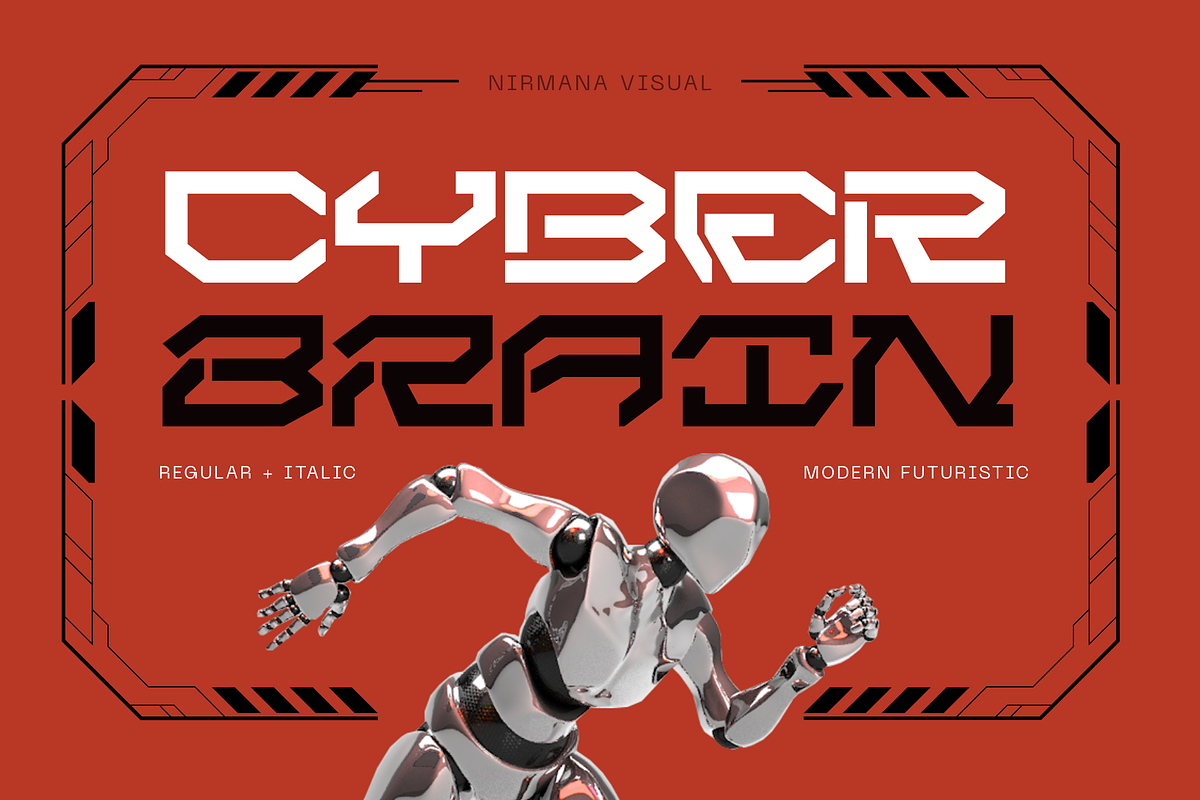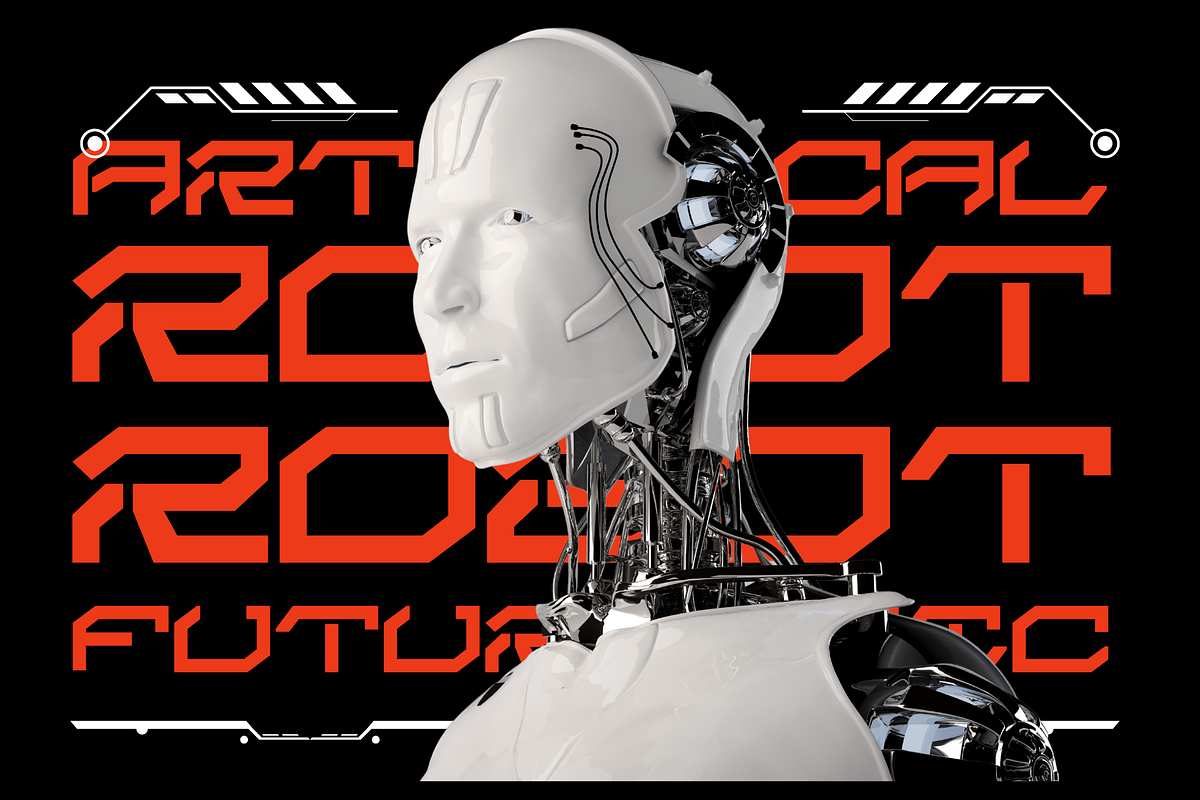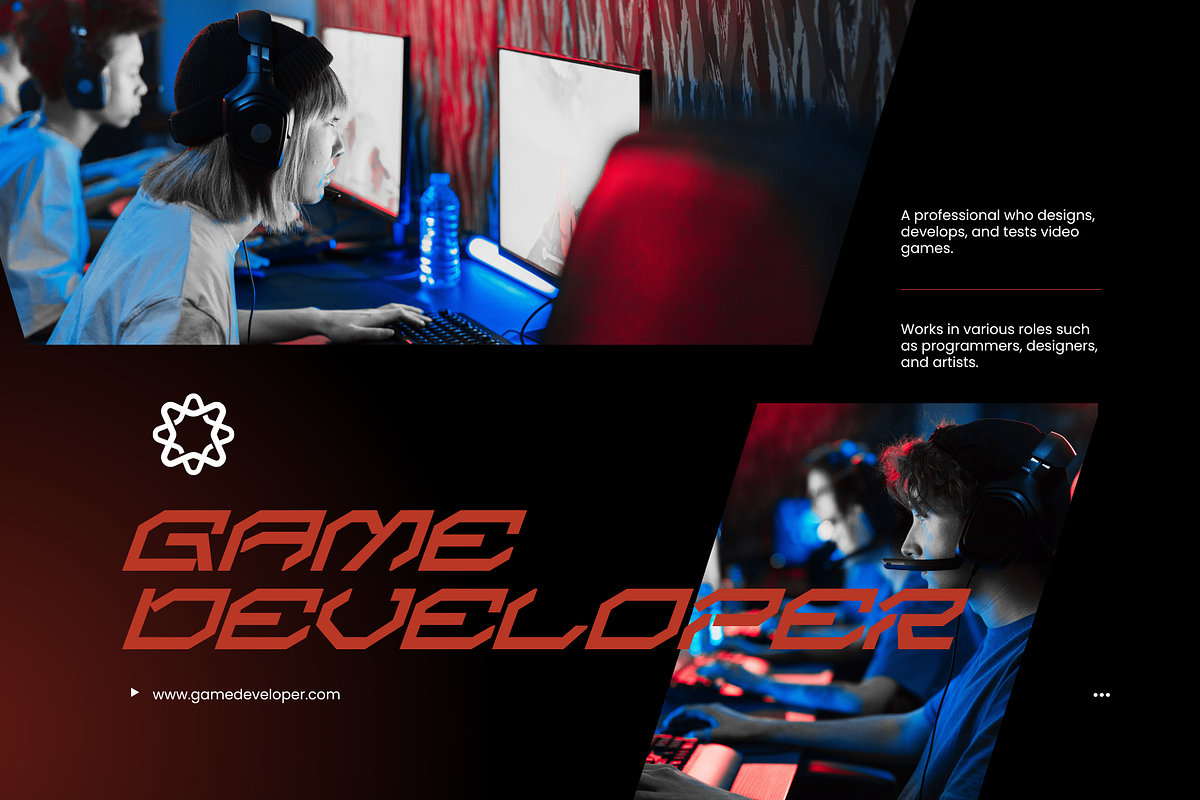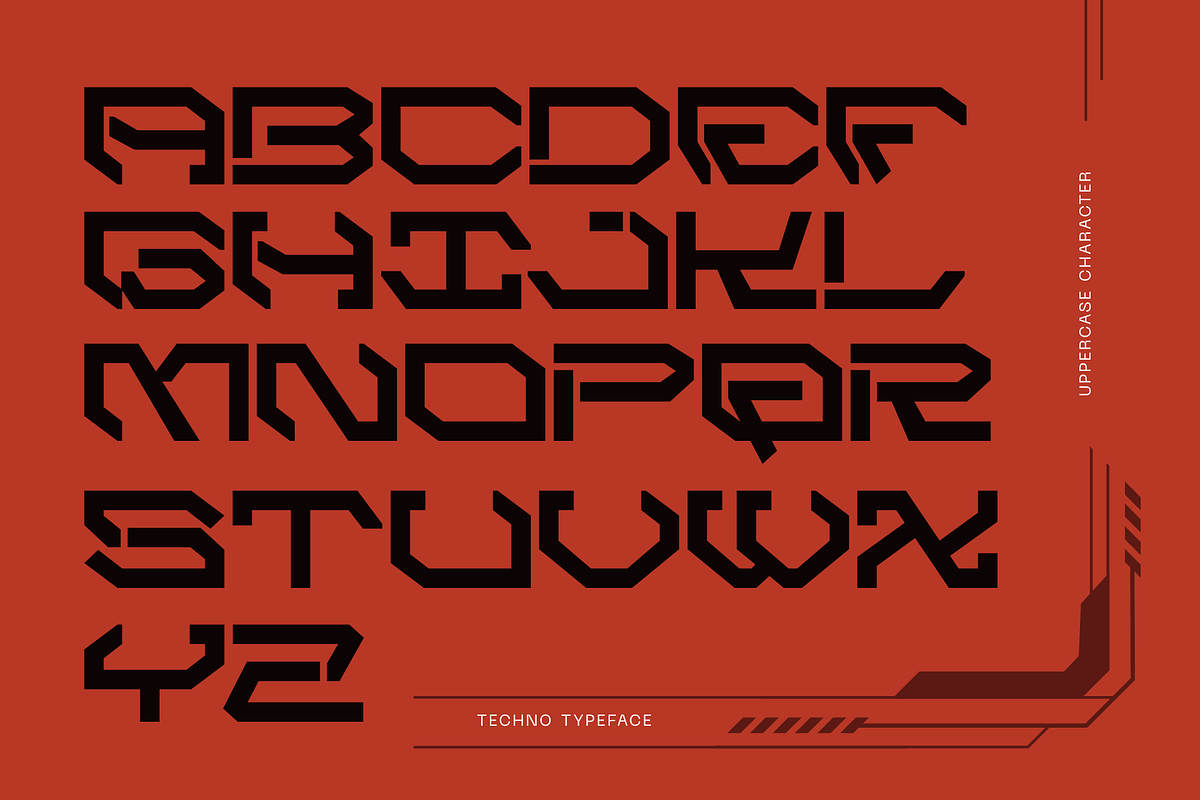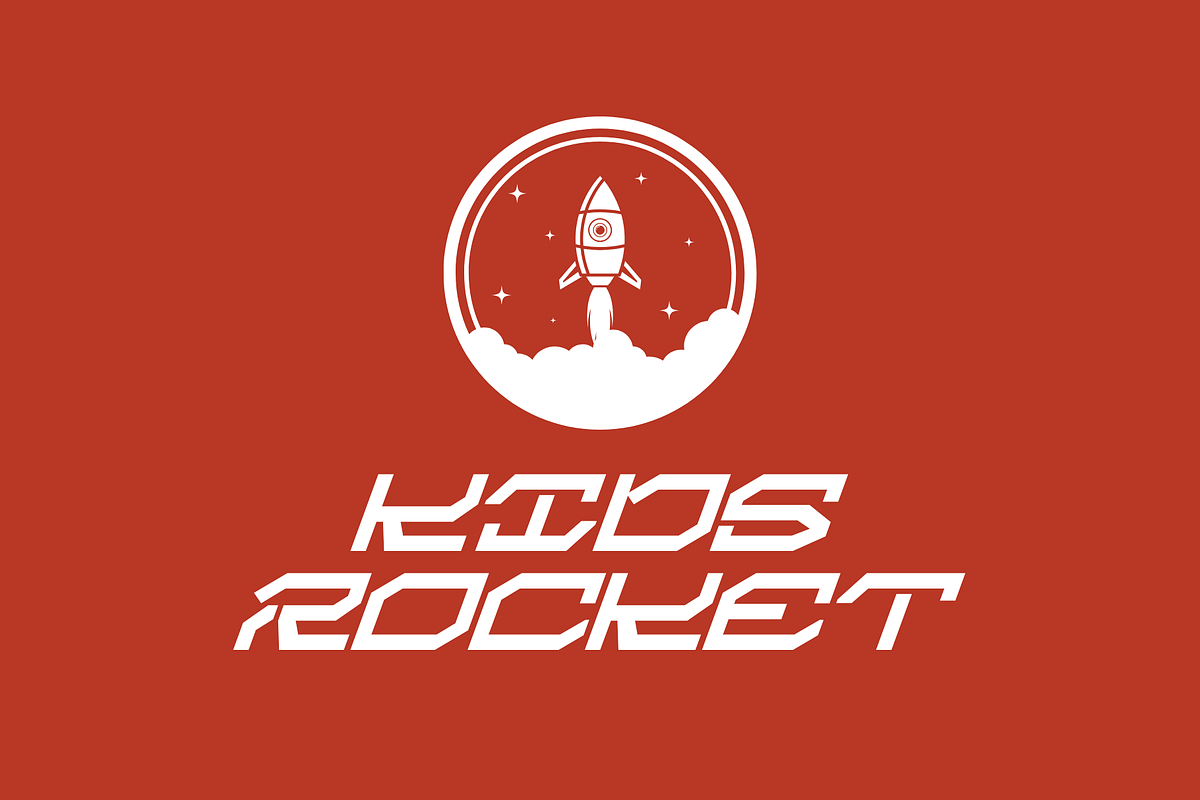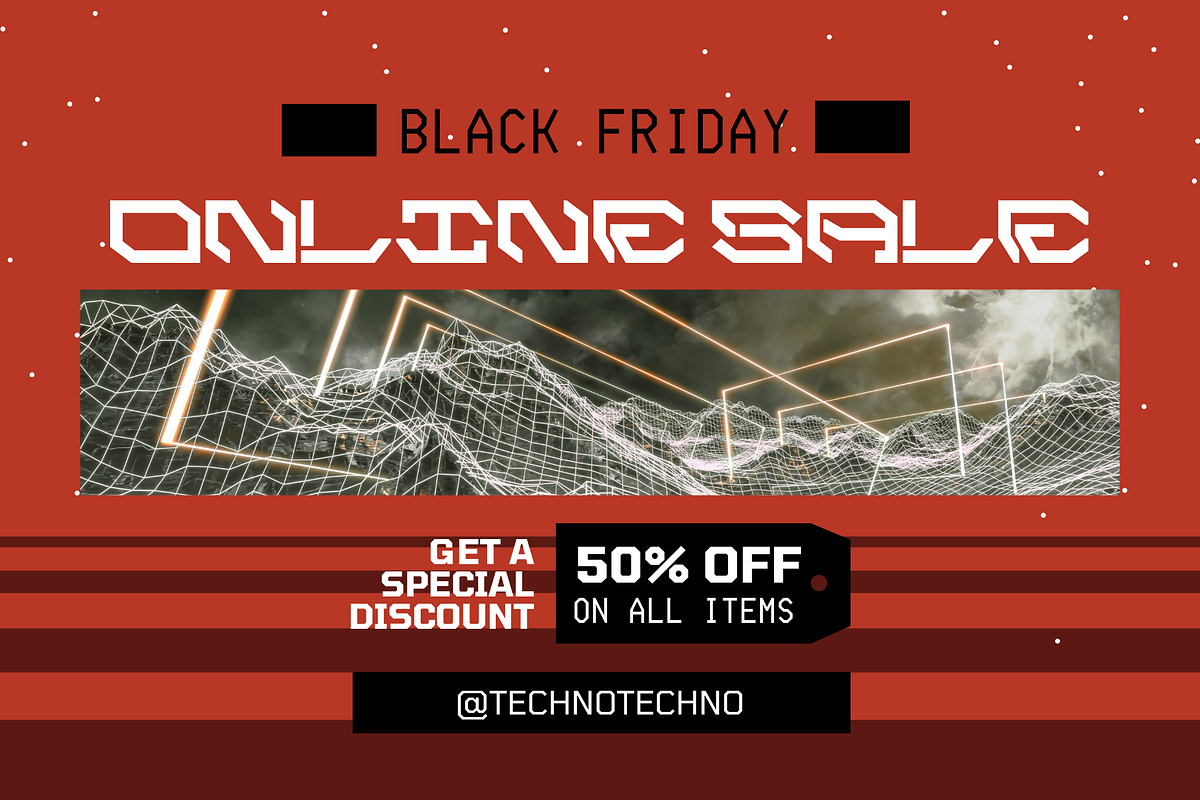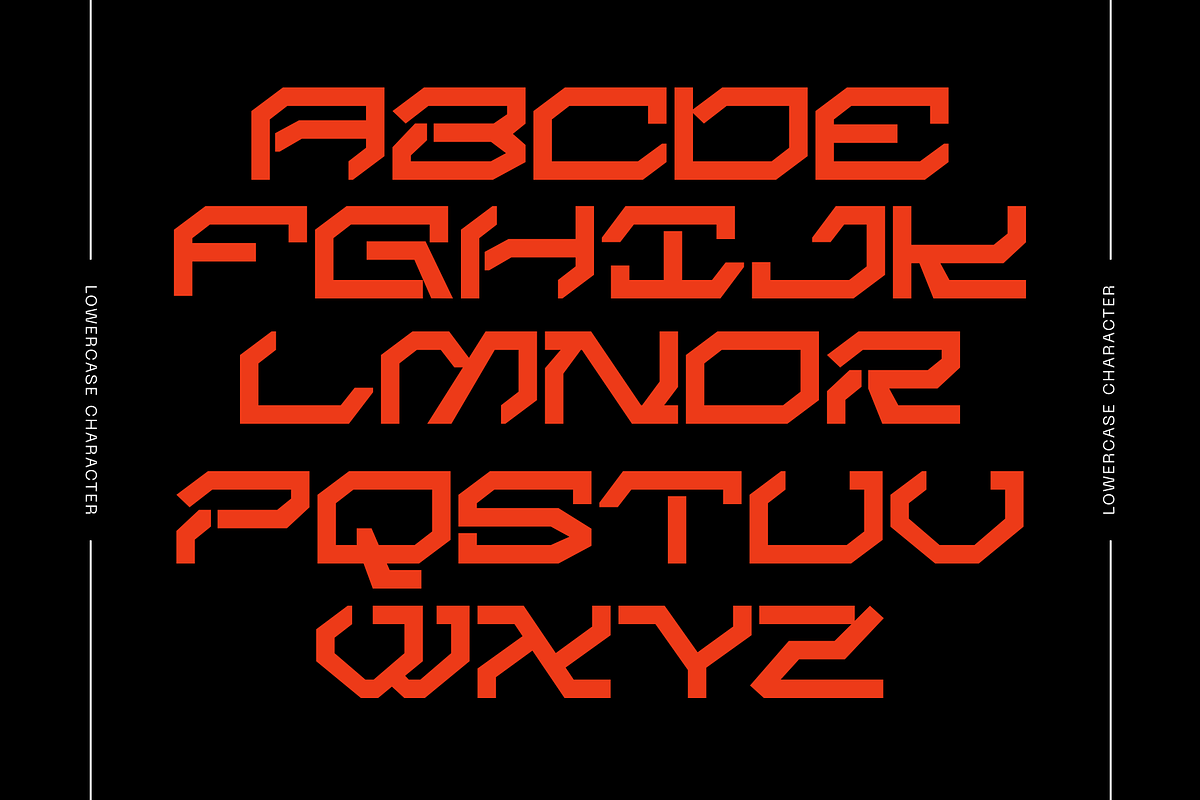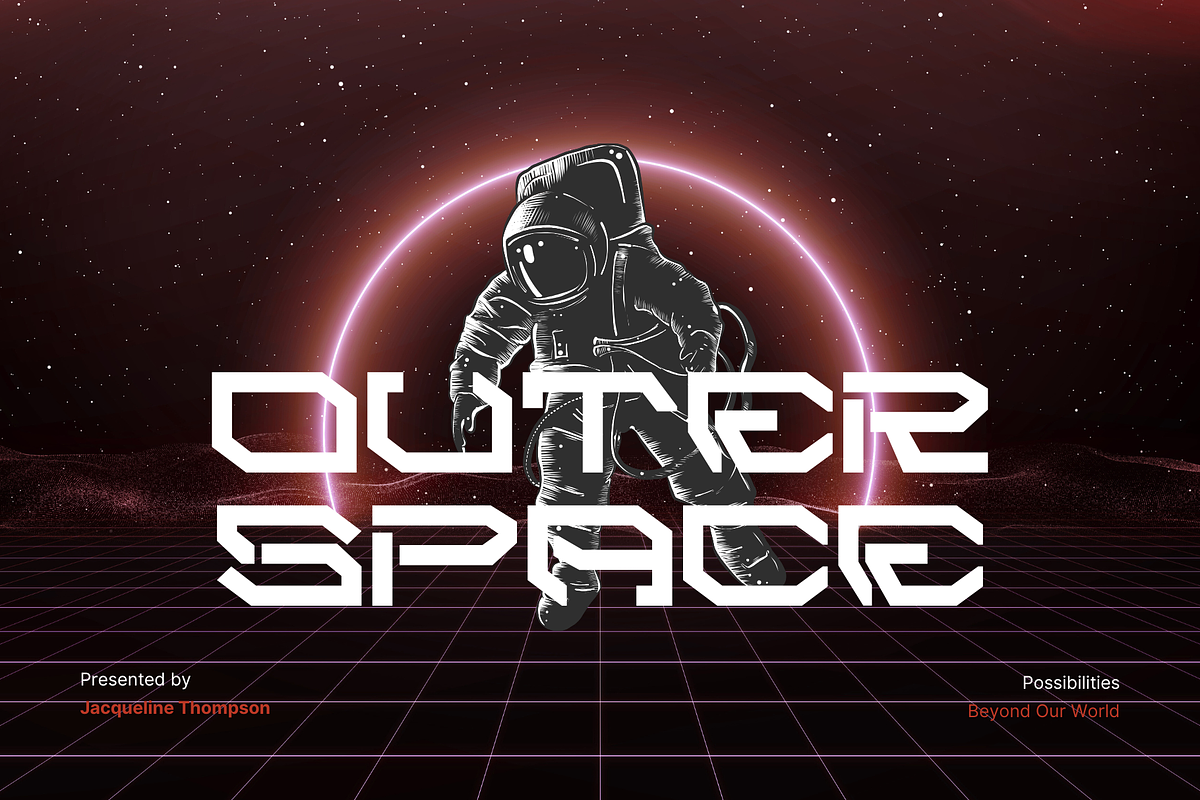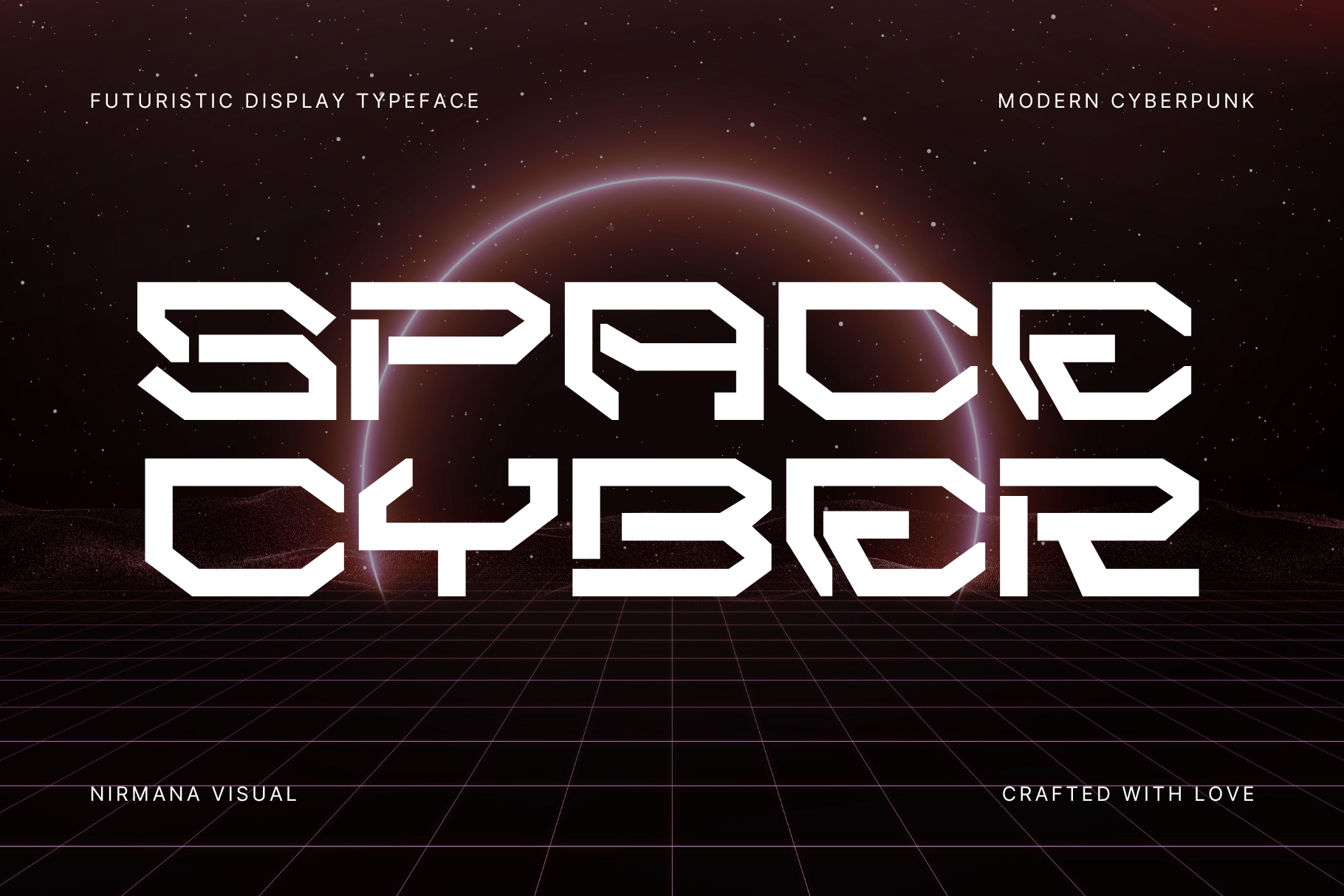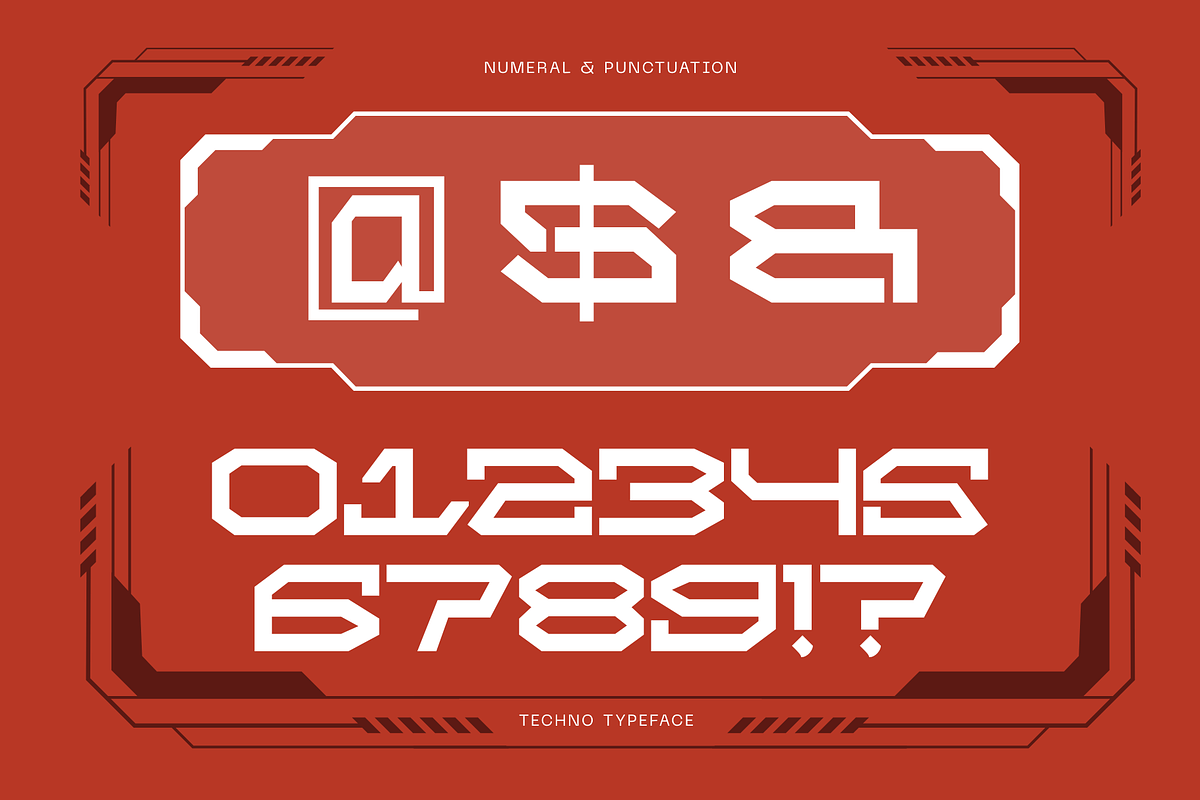
Space Cyber - Modern Futuristic Font
Space Cyber a modern futuristic cyberpunk font designed for bold displays and high-tech interfaces. Inspired by neon-lit cityscapes and digital dystopias, Space Cyber fuses geometric precision with edgy stylization. Perfect for sci-fi titles, gaming UI, and cutting-edge branding, it delivers sharp aesthetics and a digital feel. Elevate your visuals with a font that captures the essence of the future clean, powerful, and unmistakably modern.